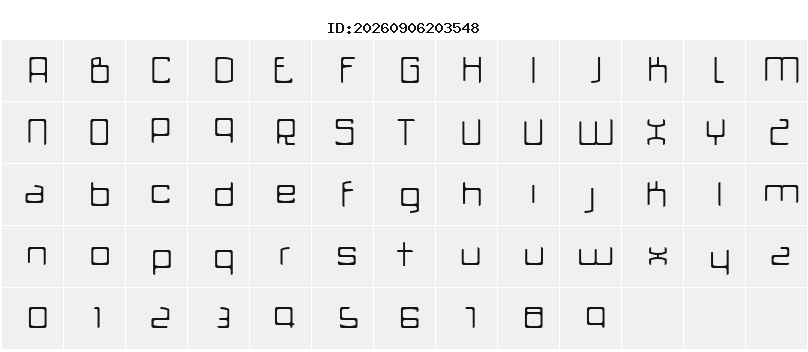
Utensil Preview
• Font Name: Utensil
• Full Font Name: Utensil
• PostScript Name: Utensil
About Utensil.ttf
Utensil.ttf is a modern, elegant sans-serif font designed for ultimate readability and visual harmony. Perfect for branding, headlines, web design, and print materials.